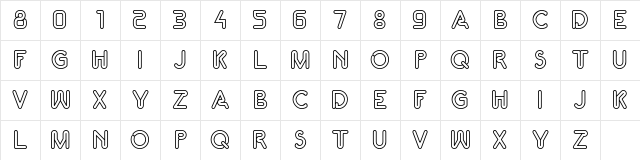
Complete Made Mo1 Regular glyph index. Displaying only characters natively supported by Made Mo1 Regular font.
Made Mo1 is a composed and adaptable typeface that performs quietly and consistently across a wide range of design contexts.